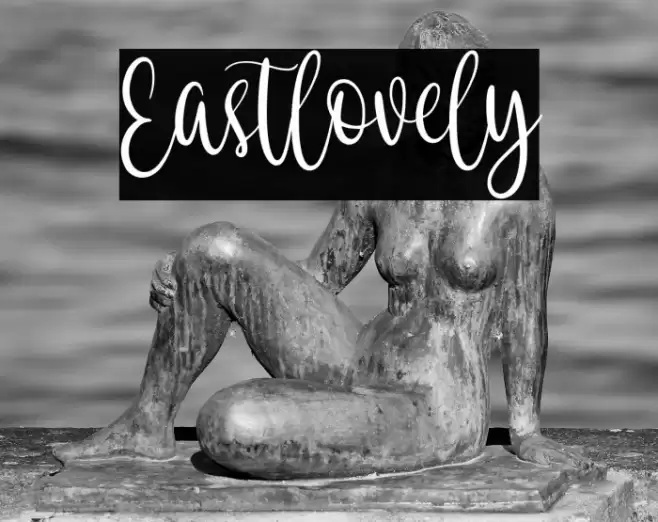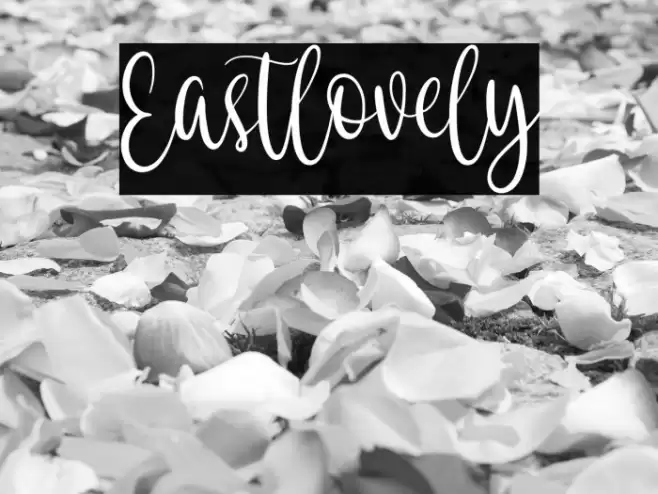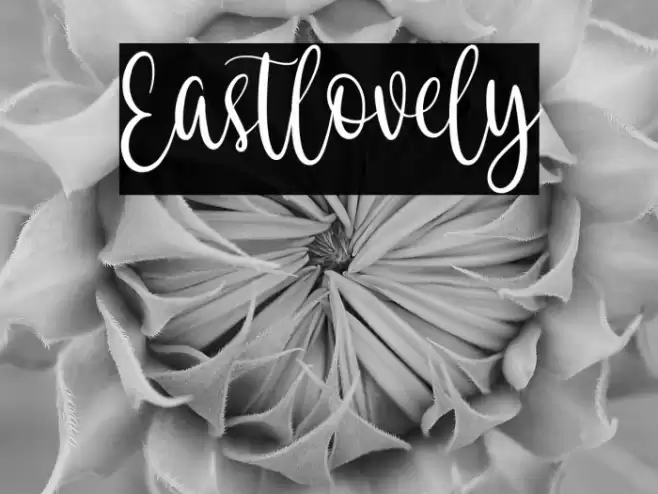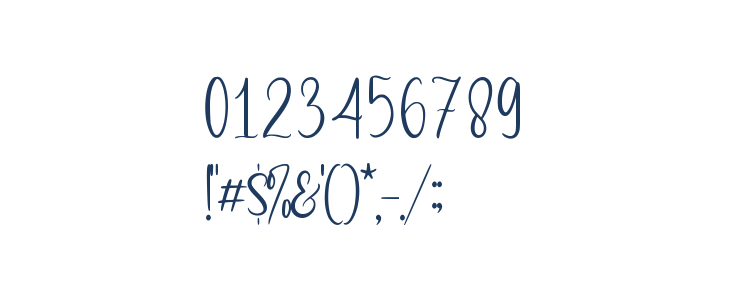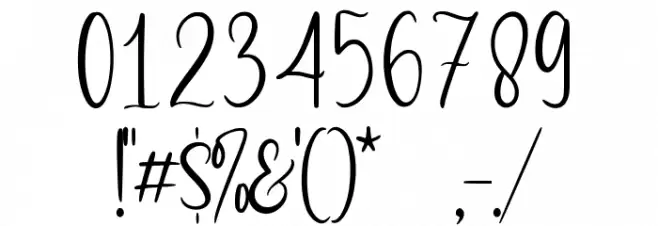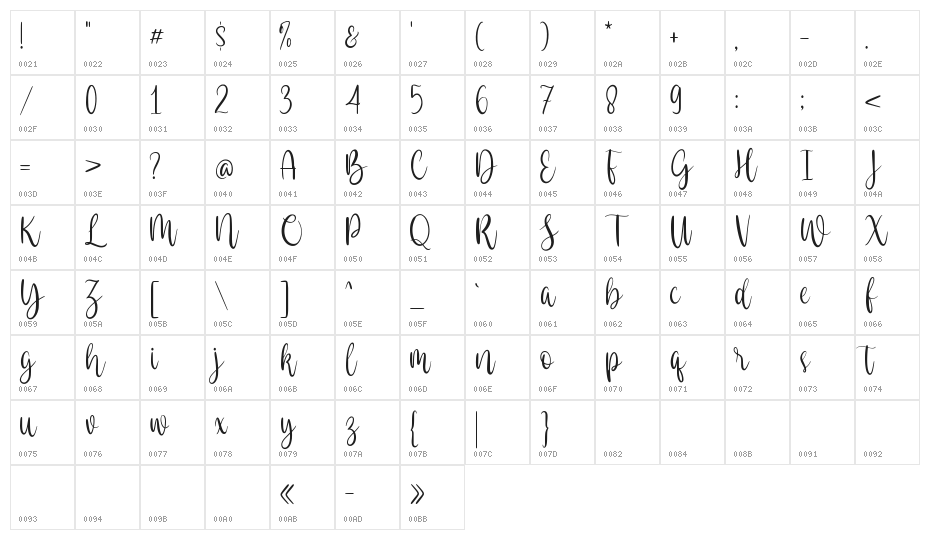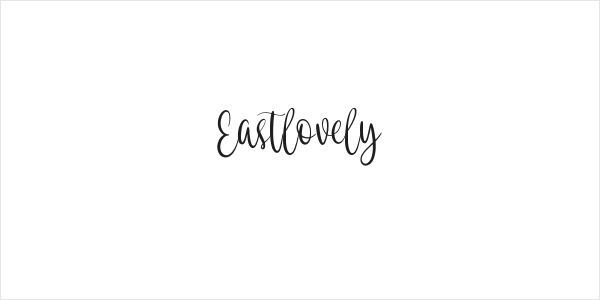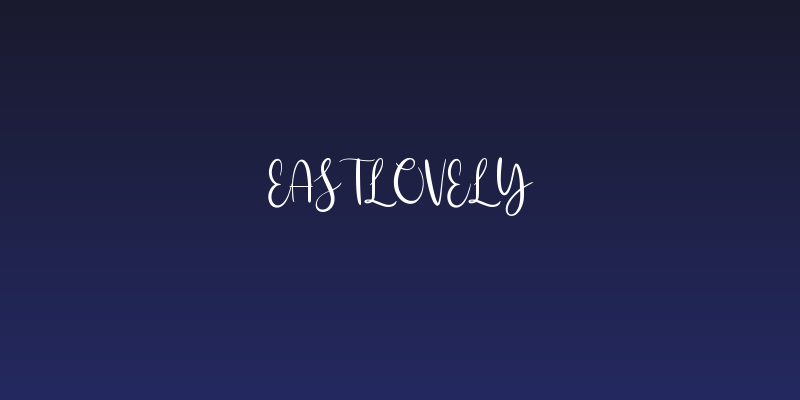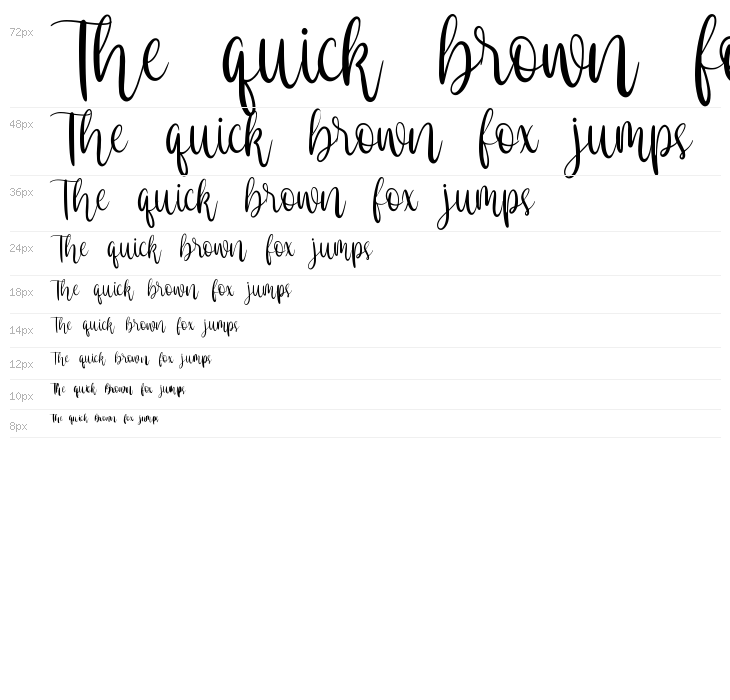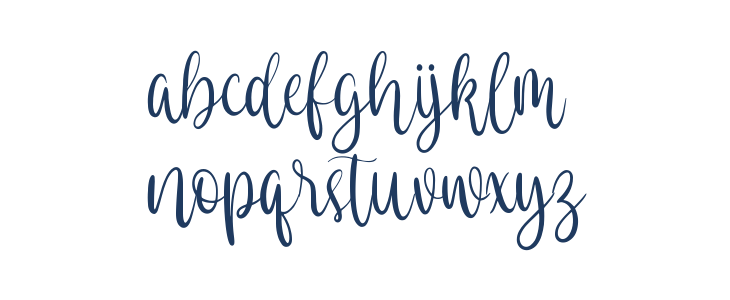
Eastlovely Font
Eastlovely Description
This font exhibits a charming handwritten style with a playful and elegant flair. The characters are crafted with smooth, flowing strokes that give a sense of movement and grace. The uppercase letters are bold and slightly elongated, while the lowercase letters maintain a consistent rhythm with a touch of whimsy. The numerals are clear and distinct, complementing the overall aesthetic. Special characters are creatively integrated, enhancing the font's versatility. This font is perfect for adding a personal touch to any design project, making it ideal for invitations, greeting cards, and branding materials.
A playful and elegant handwritten font with smooth, flowing strokes from Regular fonts.